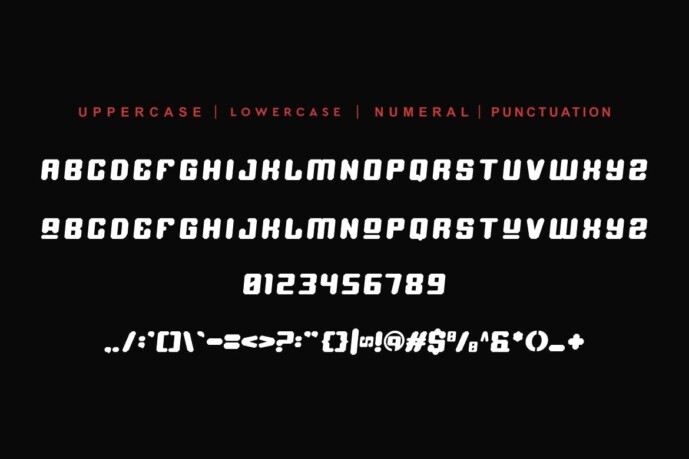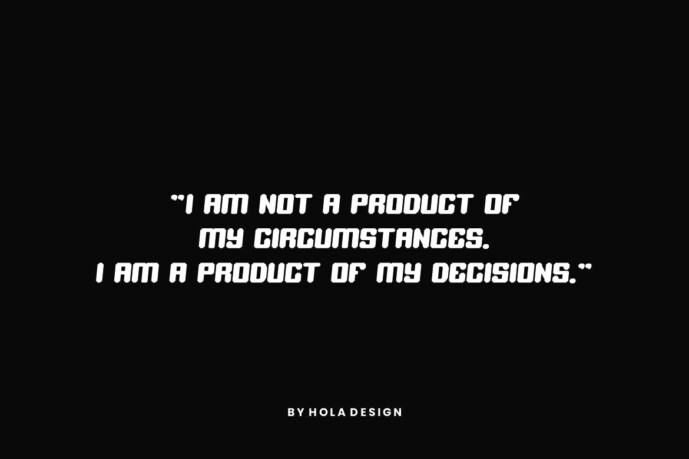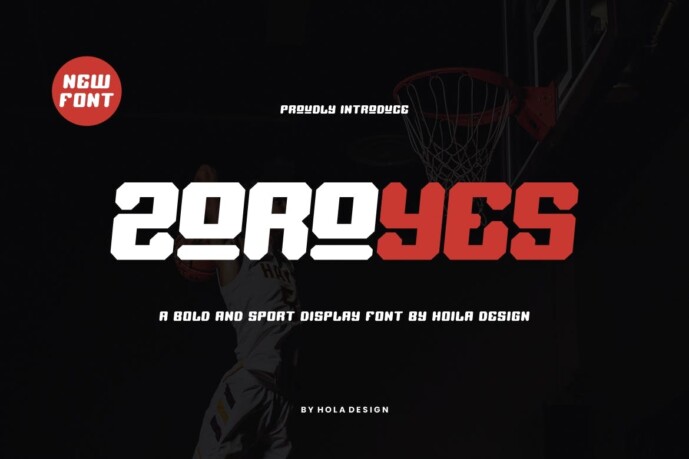
Zoroyes Font
Zoroyes Font – Sport Font is unique. Ready to use for your designs, such as labeling, movie scene, poster, movie title, concerts, album covers, logos and much more